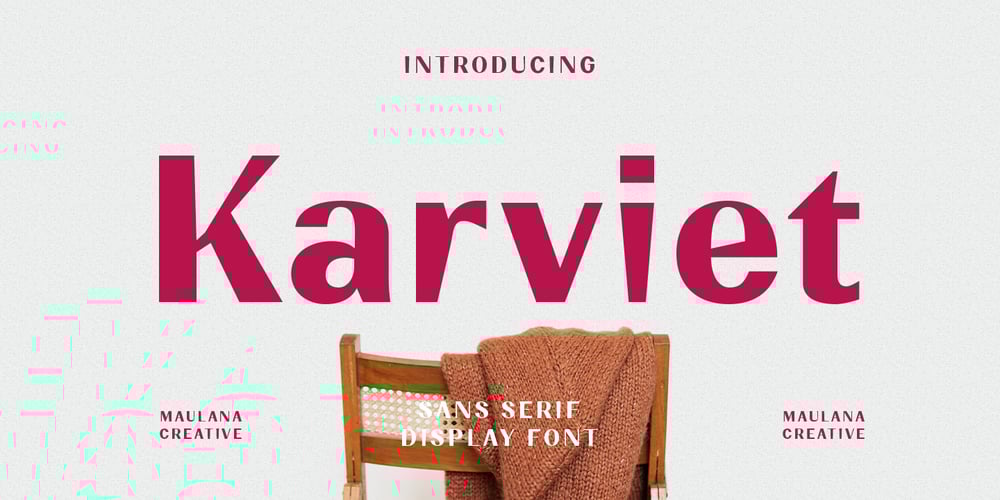
MC Karviet
MC Karviet font
MC Karviet Font Family was designed by Gilang Maulana and published by Maulana Creative. MC Karviet contains 1 styles and family package options. Karviet is a decorative experimental display font. Regular stroke, fun character with a bit of ligatures and alternates. To give you an extra creative work. Karviet font support multilingual more than 100+ language. This font is good for logo design, Social media, Movie Titles, Books Titles, a short text even a long text letter and good for your secondary text font with script or serif. Make a stunning work with Karviet font. Cheers, Maulana Creative